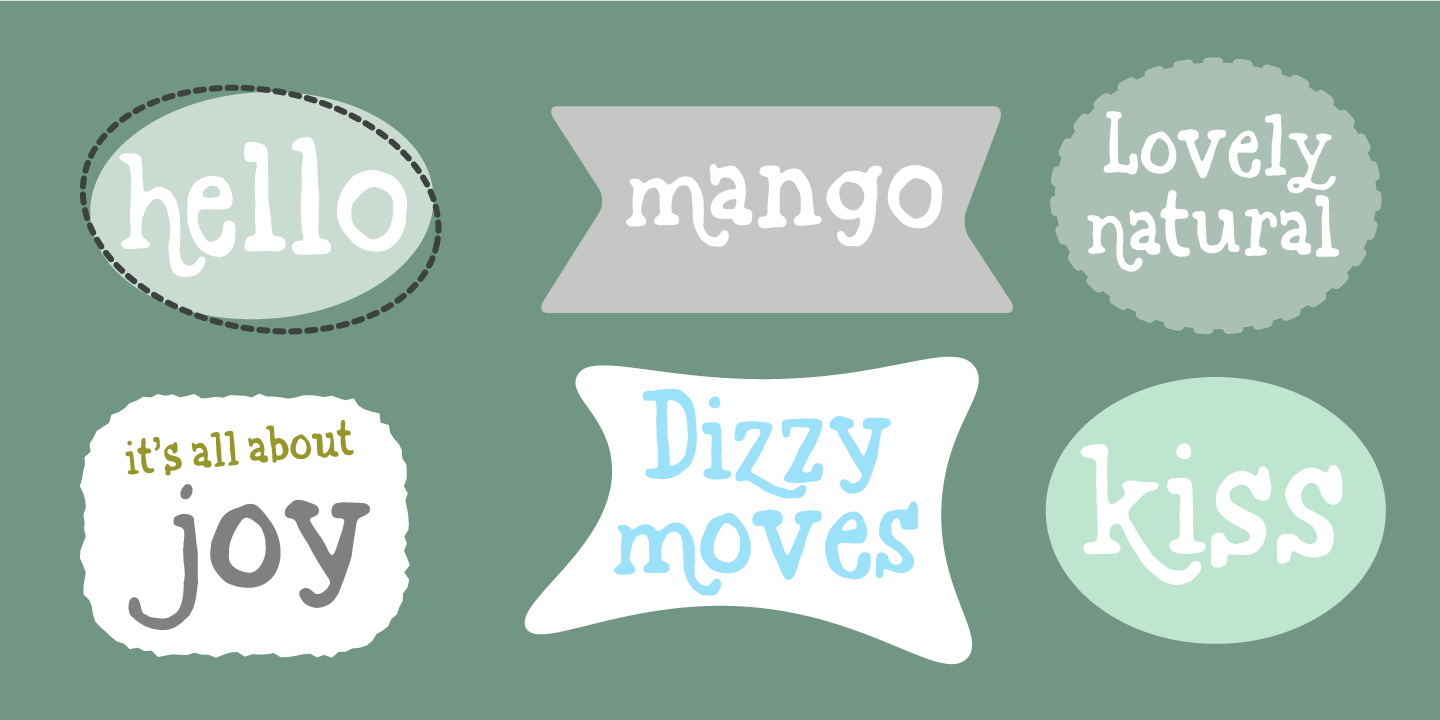
Grovflab Font excels in diverse design applications including scientific research laboratories, biotechnology company branding, environmental research presentations, agricultural innovation materials, botanical garden signage, organic farming communications, sustainability research publications, and eco-science educational resources that require laboratory precision and organic sophistication.
What makes Grovflab Font truly exciting is its innovative fusion of laboratory precision and organic growth that captures the essential connection between scientific research and natural cultivation, embodying the cutting-edge intersection where controlled laboratory environments meet organic farming principles to advance sustainable agriculture and environmental science. This distinctive typeface features structured letterforms with subtle organic details that evoke images of research greenhouses, precision cultivation systems, and the careful balance between scientific methodology and natural growth processes. The font's scientific character reflects the accuracy and innovation required in modern agricultural research, making it perfect for brands that want to communicate scientific excellence, environmental stewardship, and the groundbreaking research that advances sustainable cultivation practices. Its laboratory appearance creates immediate associations with scientific innovation and organic development.
The Grovflab Font family includes multiple weights and scientific variations designed to enhance research communication. The collection features Light, Regular, Medium, Bold, and Black weights, each maintaining the font's characteristic laboratory appeal while offering different levels of scientific presence. The family also includes alternate characters with varying precision details, organic elements that simulate natural growth patterns, and stylistic sets that create systematic text arrangements reflecting the order of scientific research and organic cultivation. Additional features include contextual alternates and research ligatures that enhance the authentic, scientific appearance.
Scientific and agricultural professionals consistently choose Grovflab Font Free Download for projects requiring authentic laboratory character and research credibility. The font's scientific nature makes it particularly effective for research institutions, biotechnology companies, and agricultural innovation organizations targeting audiences who appreciate scientific precision and environmental sustainability. Its excellent readability across various applications ensures effective communication while maintaining the distinctive scientific character that conveys research authority and agricultural innovation.
The advanced OpenType capabilities of Grovflab Font include contextual alternates, stylistic sets, and comprehensive character support that accommodates scientific terminology and agricultural expressions while preserving the font's authentic laboratory character. The technical precision ensures consistent scientific appearance across different research applications and agricultural platforms.
For creative professionals seeking a typeface that embodies genuine scientific heritage and laboratory sophistication, Grovflab Font offers unparalleled research appeal and organic elegance. Its ability to convey scientific authority while maintaining functional communication makes it invaluable for research institutions, biotechnology companies, and agricultural organizations. The font's distinctive scientific character ensures memorable research impact across all applications, creating powerful visual identity systems that celebrate the intersection of laboratory precision and organic cultivation that drives innovation in sustainable agriculture and environmental science.